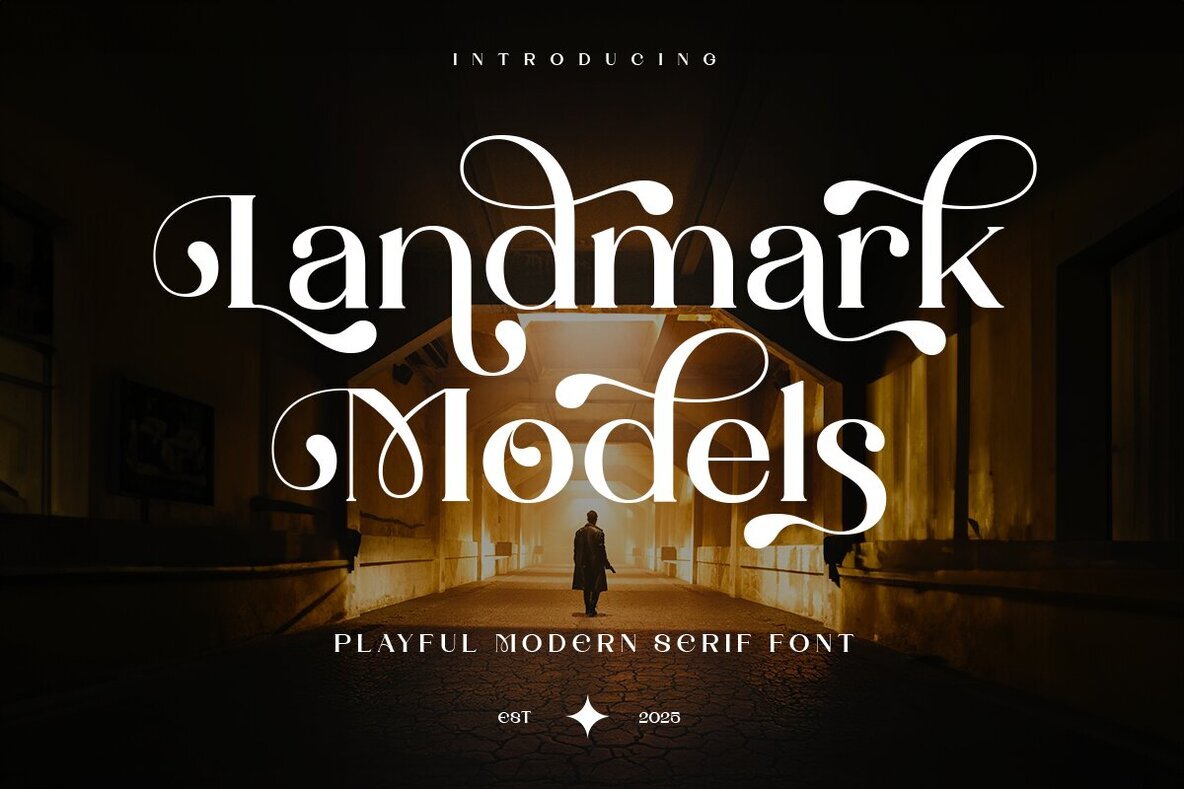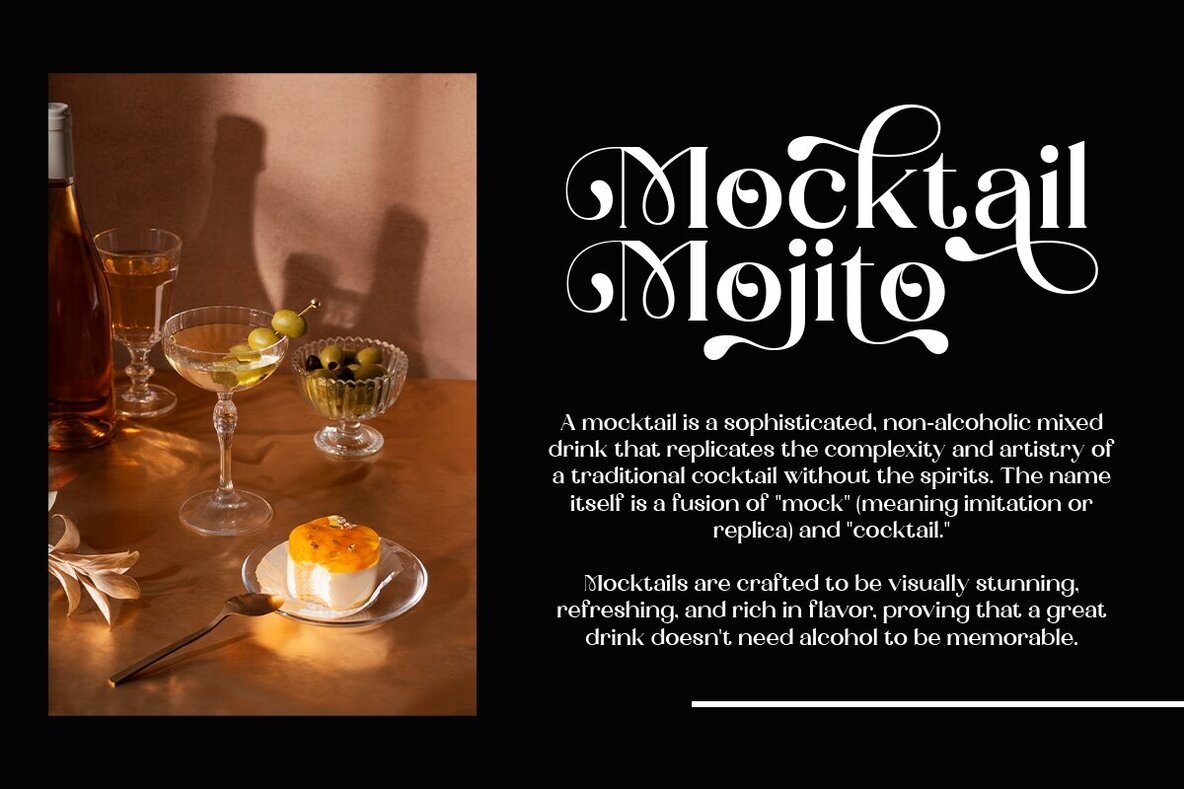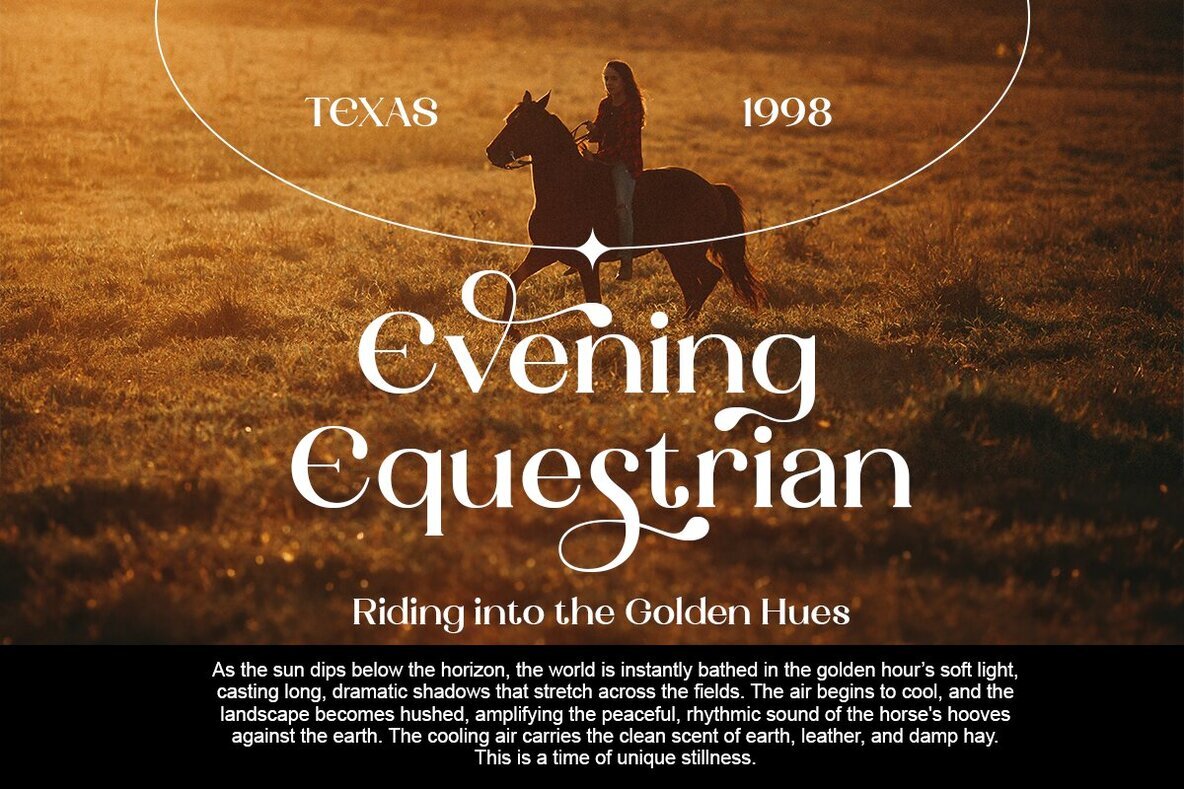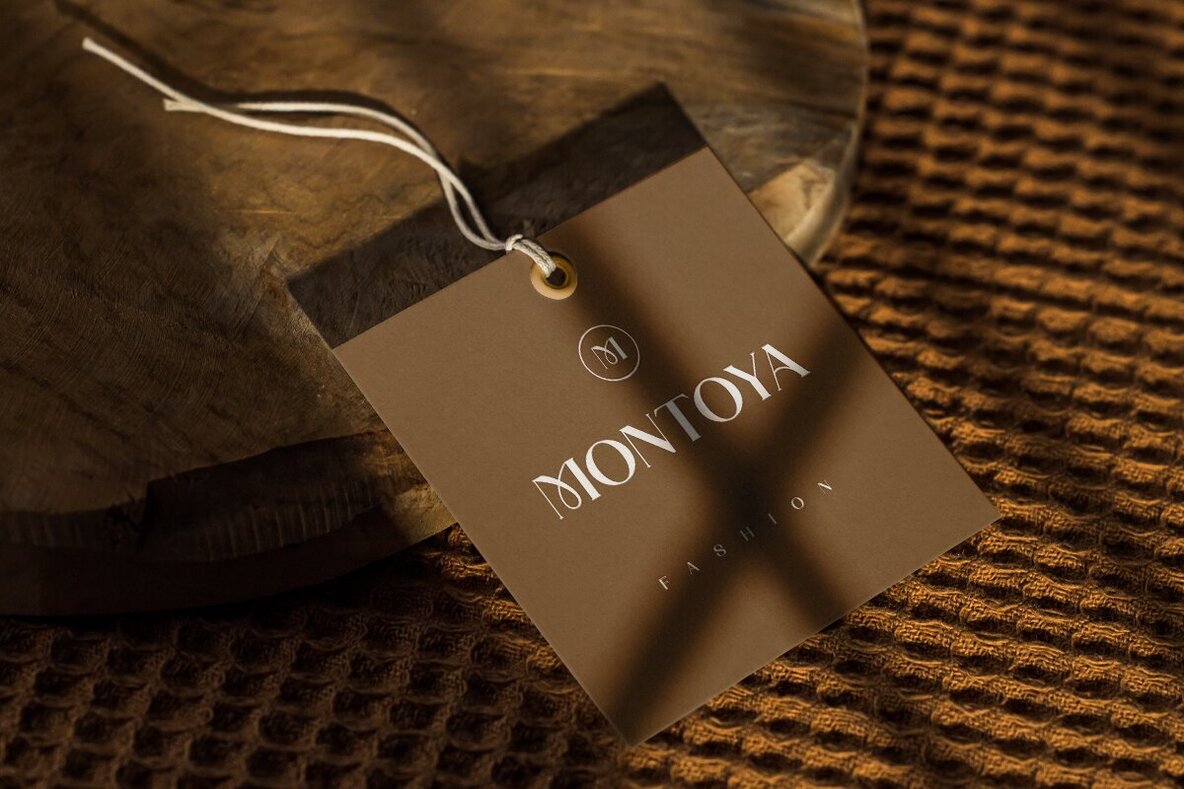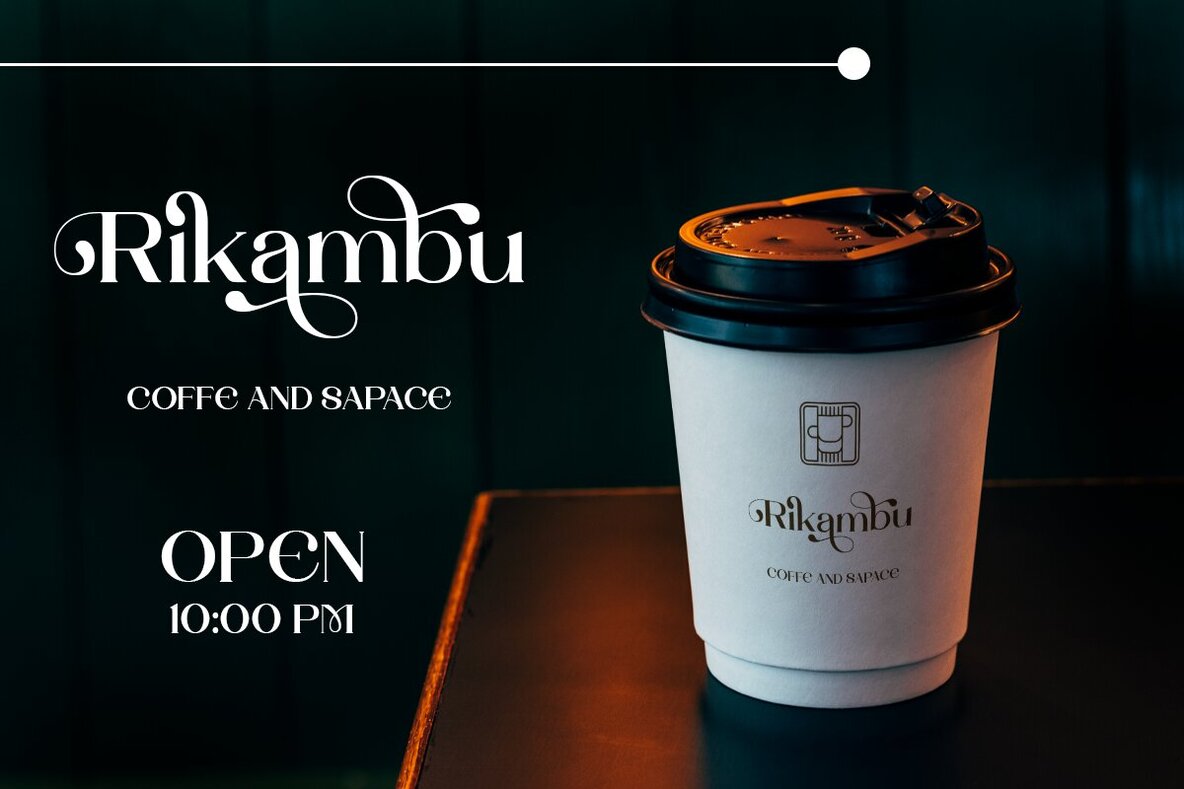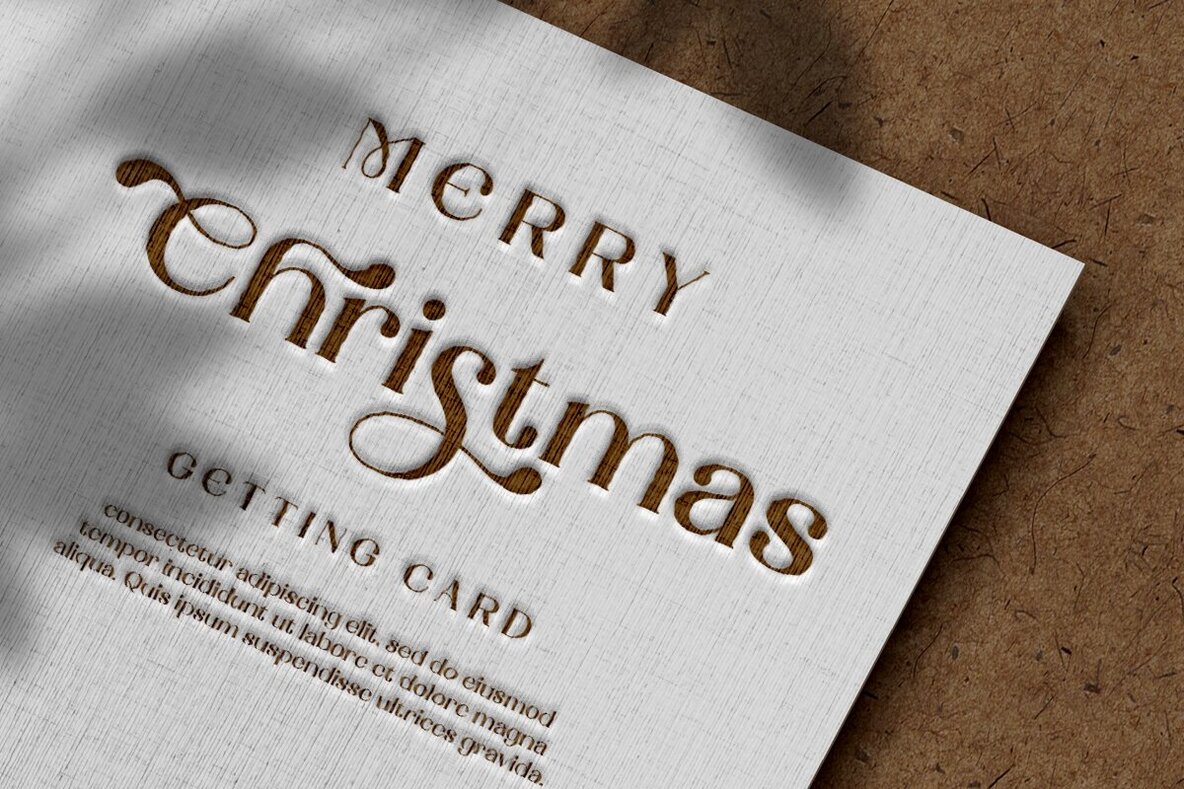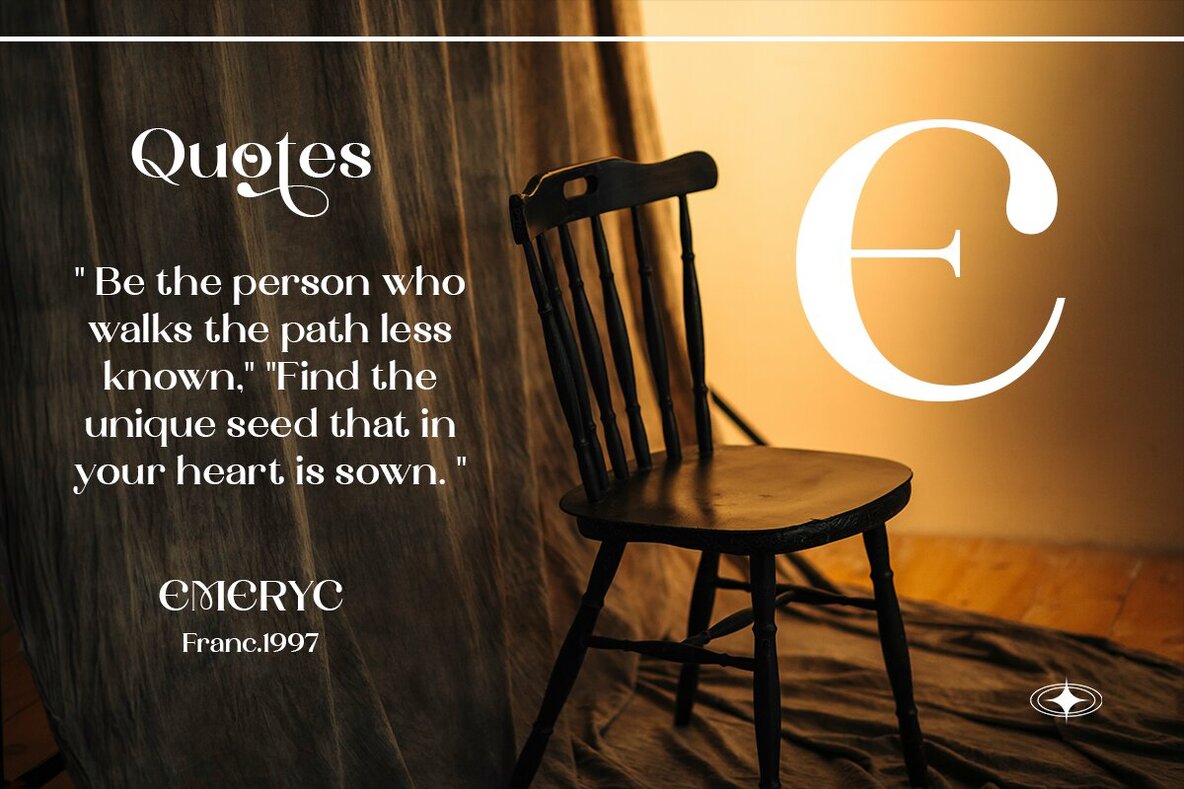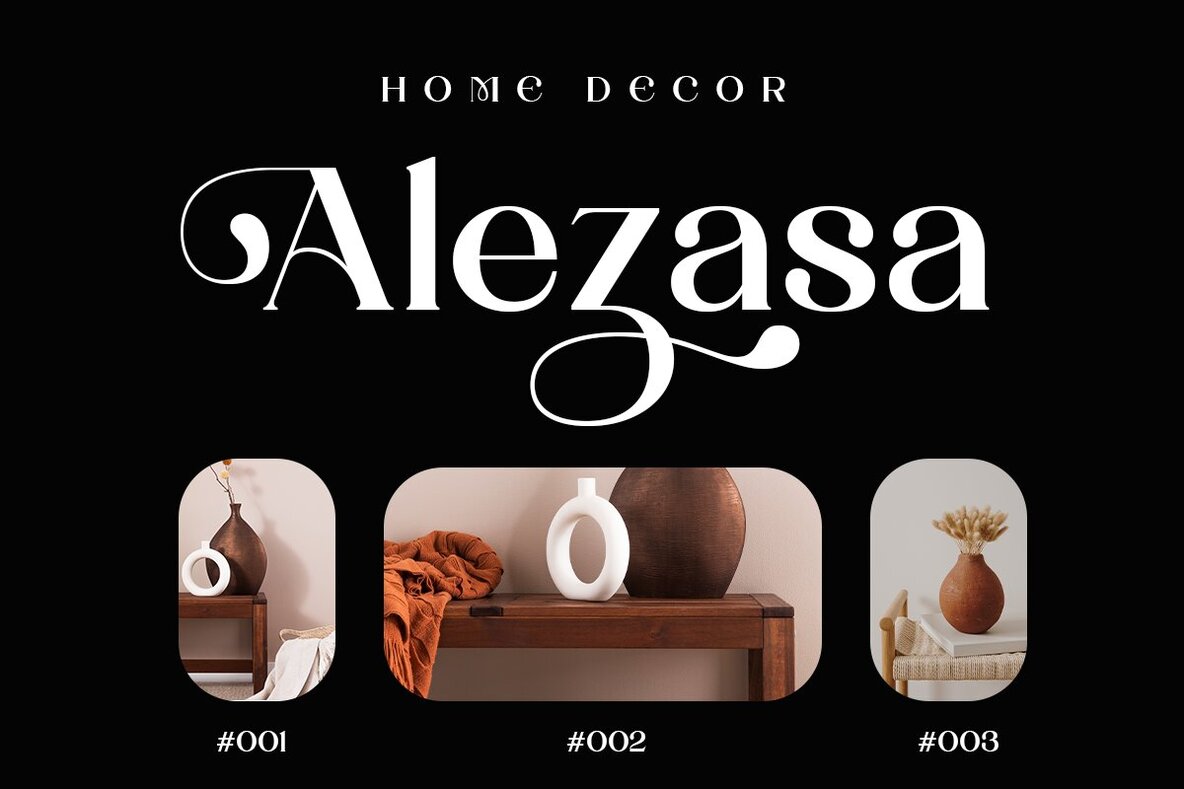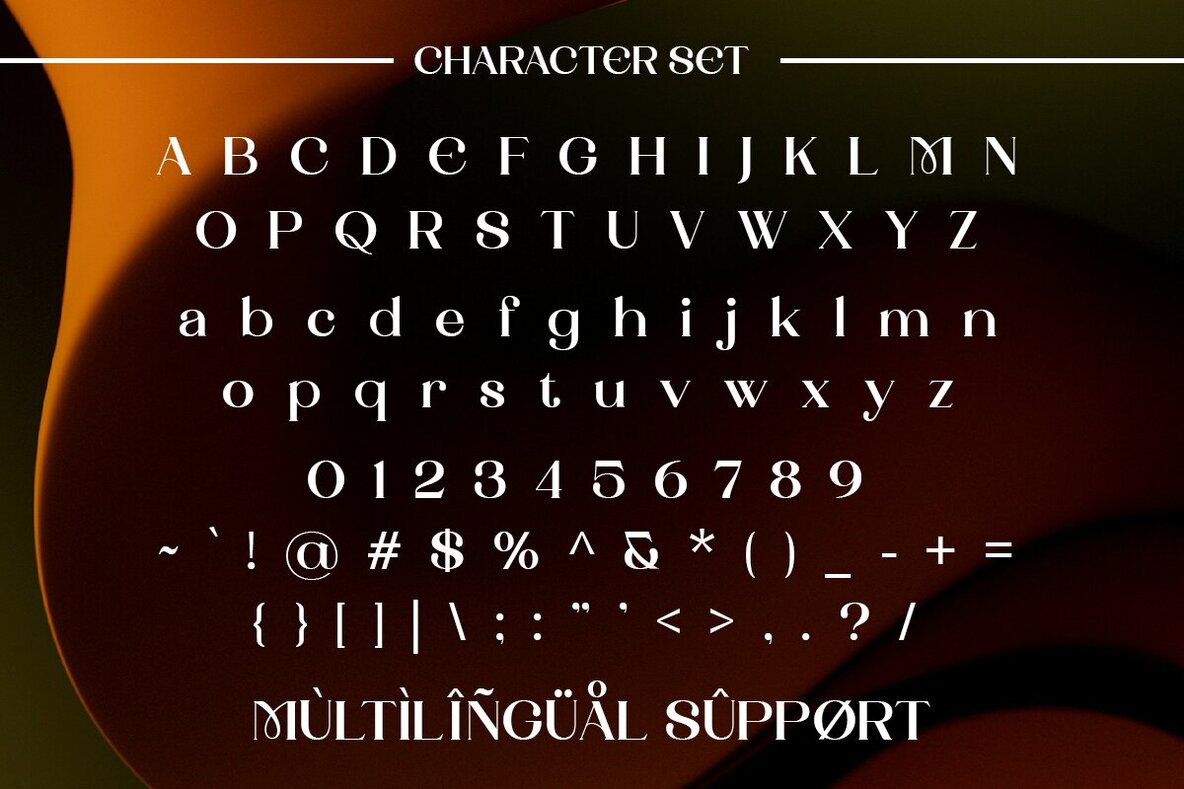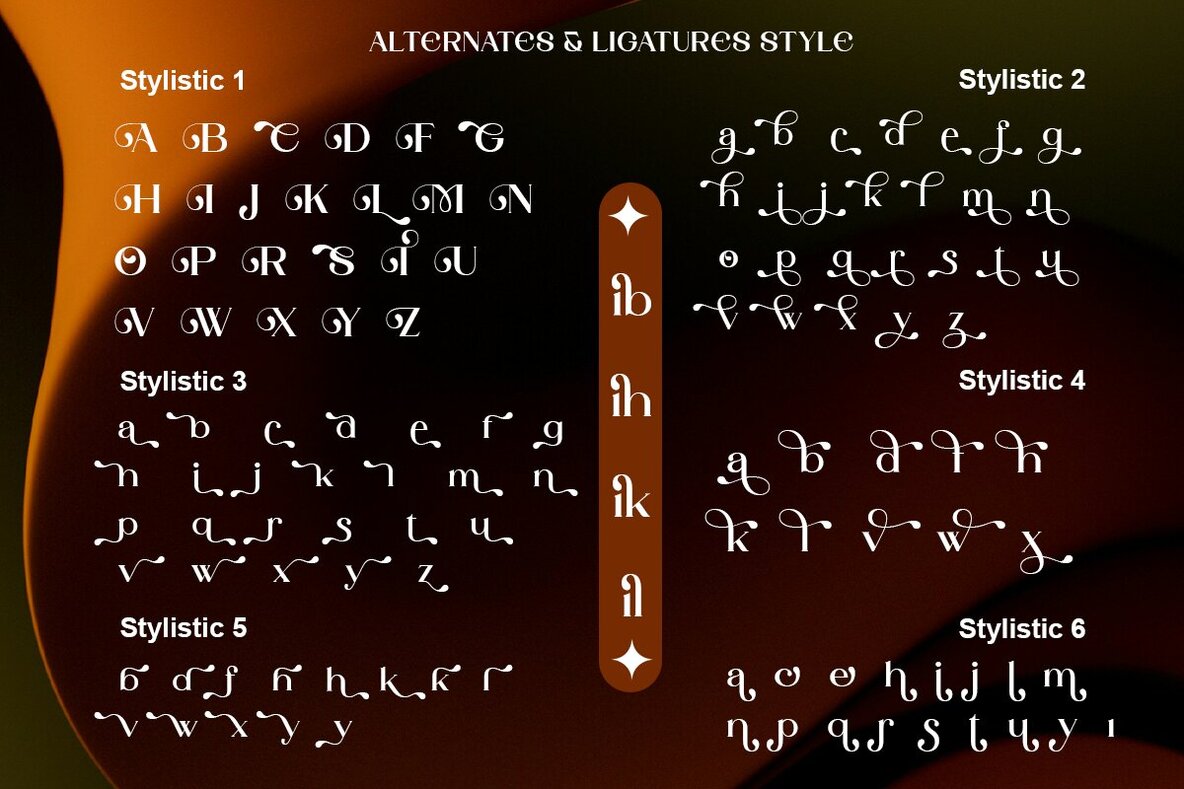
Landmark Models Font
Landmark Models is a contemporary serif font designed with playful elegance and precise curves. Its refined details introduce a sense of creativity and classic sophistication, ideal for projects that demand both visual impact and lasting appeal. The typeface stands out in branding, fashion, packaging, editorial layouts, and logos, offering a balance between modern style and artistic character. The graceful letterforms and expressive alternates contribute to a polished, high-end look for any design. Landmark Models brings together modernity and timeless charm, giving your compositions a distinct and professional edge in competitive creative spaces.Landmark Models: Elegant Modern Serif Typeface